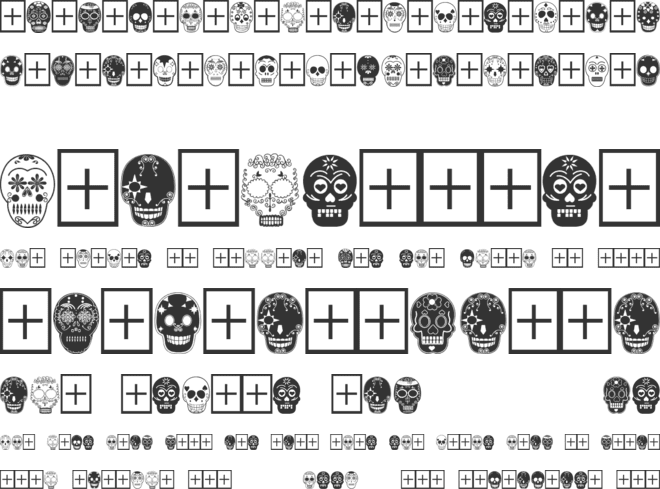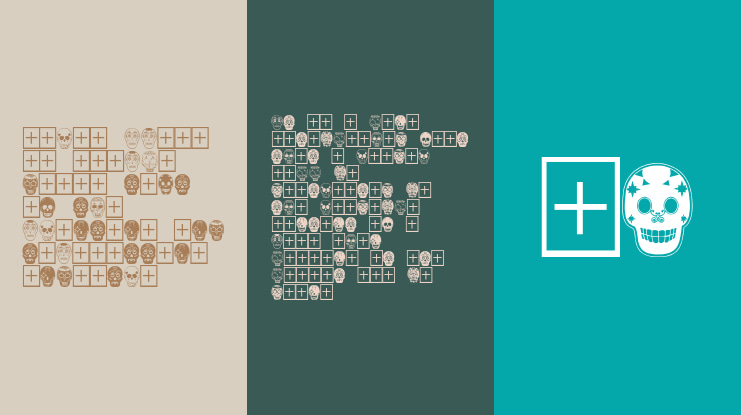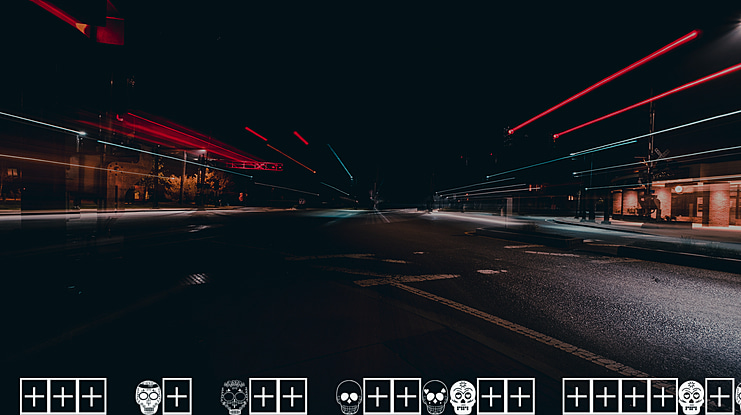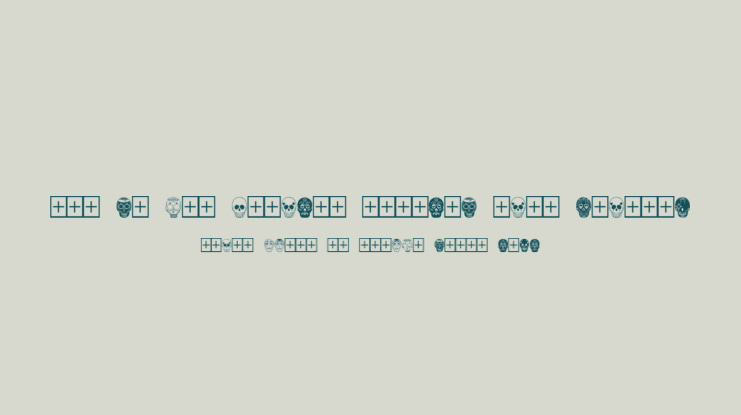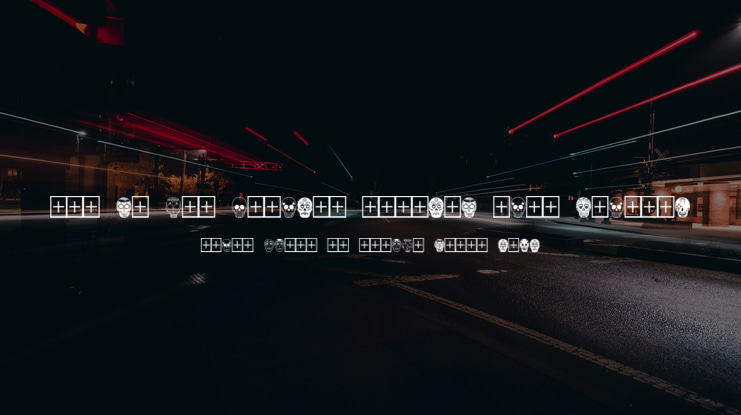
Dia de los Muertos Free Version, by Intellecta Design
Dia de los Muertos Free Version has unpublished gliphs in a special free set, with a limited number of gliphs. Buying “Dia de los Muertos” (at MyFonts.Com) you get FREE a amazing set of eps vectors : 39 naive, intrincated and colored funny skulls, ready to use."
Dia de los Muertos is a colorful collection of skulls based on the lively Mexican fiesta celebration where skulls are used as humorous epitaphs of people still alive, besides being a symbol of celebration. A work of Iza W that can be used for children in arts, arts crafts, among other applications. Buying “Dia de los Muertos” you get FREE a amazing set of eps vectors : 39 naive, intrincated and colored funny skulls, ready to use."